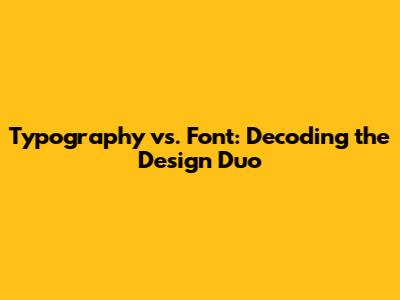
Typography Vs. Font: What's The Real Difference?
Hey everyone! Ever wondered what the real difference is between typography and fonts? You're not alone! These two terms are often tossed around in the design world, and, let's be honest, they're sometimes used interchangeably. But, trust me, there's a definite distinction, and understanding it can seriously level up your design game. So, buckle up, because we're about to dive deep into the fascinating world of typography and fonts, breaking down the details and making sure you know the difference between the two!
Unveiling Typography: The Art of Arrangement
Typography, at its heart, is the art and technique of arranging type to make written language legible, readable, and appealing when displayed. Think of it as the big-picture strategy. It's about more than just picking a pretty font; it's about crafting a visual experience that guides the reader, communicates a specific tone, and enhances the overall message. This means considering elements like font selection, line spacing, leading, kerning, tracking, type size, and color, all working together to create a cohesive and impactful design. It's how words are presented on a page (or screen) to create a visual harmony that works for the user.
Letβs get more specific. When we talk about typography, we're talking about the art of arranging type. Now, what does that actually mean? Well, it means making considered choices about how you present the text so that it's easy and pleasurable for the audience to read. It's about more than just picking a pretty typeface. Typography is a way to manipulate the words to create the style, look, and the feeling you want to convey. It's like painting with words. You might use certain fonts that are tall, and narrow to give the impression of being clean and modern. Using a font is like choosing the brush, while typography is the complete picture, and also includes layout.
Typography is about much more than just the appearance of text. It's about the readability, legibility, and visual hierarchy of your content. Think of a well-designed website or a beautifully laid-out book. The typography choices β the fonts, sizes, spacing, and arrangement of text β all work together to guide your eye, make the content easy to consume, and convey the intended message. Typography involves making decisions about these elements to achieve the desired effect. Choosing the right font is important, but then you have to decide on the font size, line spacing, alignment, and other factors.
So, why is typography so important? Well, good typography can make or break a design. Imagine reading a book with tiny, cramped text or a website with giant, clashing fonts. It's not a pleasant experience, right? On the other hand, well-executed typography can draw readers in, improve comprehension, and enhance the overall aesthetic appeal of the design. It's a key element in creating a positive user experience. Basically, typography is a foundational element in designing something that is easy to read. In the world of design, it's really the art of arranging and manipulating type. And the goal? To make the written word visually appealing and, most importantly, easy to understand. It takes the design of the words themselves.
Demystifying Fonts: The Building Blocks of Text
Now, let's talk about fonts. Simply put, a font is a specific design of typeface. It's the visual style or the design of your letters, numbers, and symbols. Each font has its unique characteristics, which include its style, weight, and sometimes even the width of the letterforms. Think of a font as a set of characters that share the same visual design. The font is the visual representation of the letters, numbers, and symbols you see on your screen or on paper. It's a single set of characters that have a common design style. So, when you choose a font, you're picking a specific style for your text, such as Arial, Times New Roman, or Helvetica. This includes the size, the weight, and the appearance of the characters.
Fonts come in various styles: serif, sans-serif, script, and decorative. Each style evokes a different feel. Serif fonts, like Times New Roman, have small strokes at the ends of the letters and are often used in body text for their readability. On the other hand, sans-serif fonts, like Arial, lack these strokes, providing a cleaner, more modern look. Script fonts mimic handwriting, while decorative fonts add a unique flair. These styles can communicate a variety of tones. For example, using a bold, sans-serif font may portray strength and modernity. Fonts are not the same as typeface. A typeface is a family of fonts that share a similar design. For instance, the Times New Roman typeface includes various fonts, such as regular, bold, italic, and bold italic.
When you install a font on your computer, you're essentially installing a digital file that contains all the character designs for that font. That font can be applied to text in a variety of ways. Designers often have a library of fonts they choose from. Fonts are the tools that designers use to create the visual style of text. Fonts are the raw materials, the typefaces, that are used to realize a design concept. The font you choose can influence how the reader perceives the content. A playful font can add a fun, inviting feel. A formal font can add a feel of seriousness. Understanding the role of fonts is essential for making good choices in the design process. Choosing the appropriate font can ensure your text is easy to read, conveys the correct message, and is visually appealing.
The Key Differences: Typography vs. Font
So, here's the crux of the matter: a font is a specific design of typeface, and typography is the art of arranging and using those fonts. To clarify this, let's break it down into a few key distinctions:
- Scope: Fonts are a component of typography. Typography encompasses a wider range of elements, including the choice of fonts, the arrangement of text, the use of white space, and the overall layout. Typography is the grand plan, while fonts are simply one of the tools you use to execute that plan.
- Focus: Fonts focus on the appearance of individual characters, while typography focuses on the overall look and feel of the text and how it interacts with the design. It's a combination of both the font selection and the way the text is arranged.
- Action: You choose a font, and then you apply typography principles to make the text work effectively. The process involves selecting the right font, arranging the text, and choosing the perfect size and spacing to match your message and attract your audience.
Conclusion: Mastering the Art of Typography
So, there you have it, guys! The lowdown on typography vs. fonts. Remember, fonts are the building blocks, and typography is the art of arranging them to create a visual masterpiece. By understanding the difference and applying the best practices, you can create designs that are not only aesthetically pleasing but also communicate your message effectively. Happy designing!